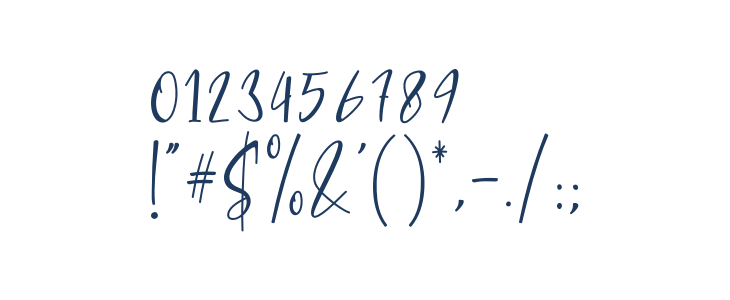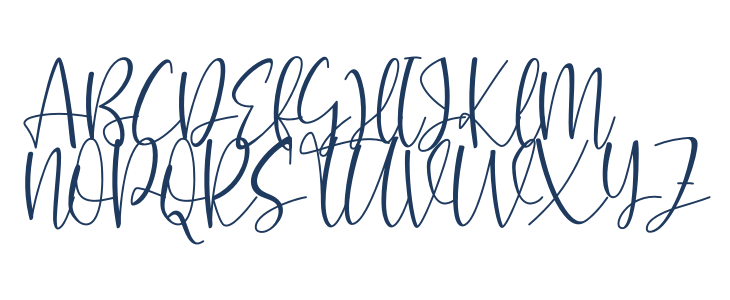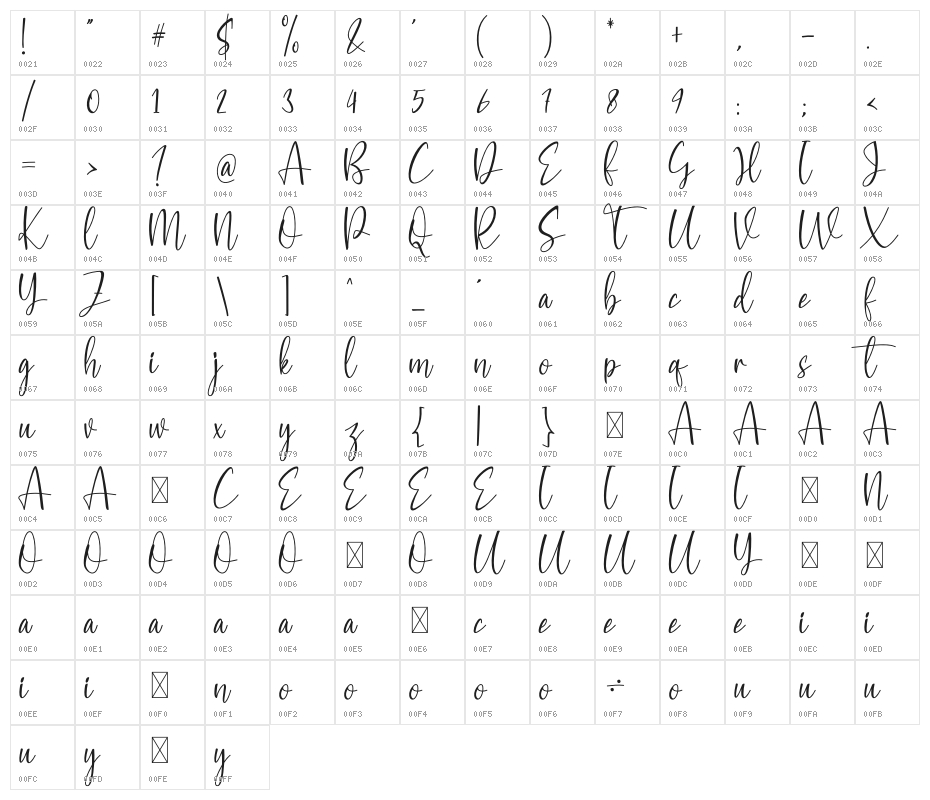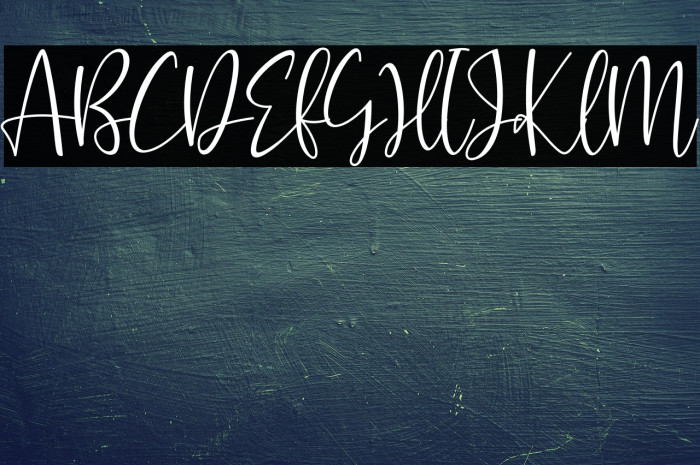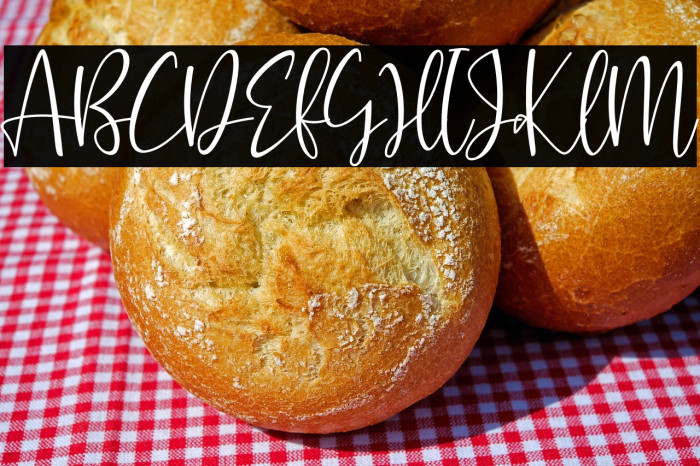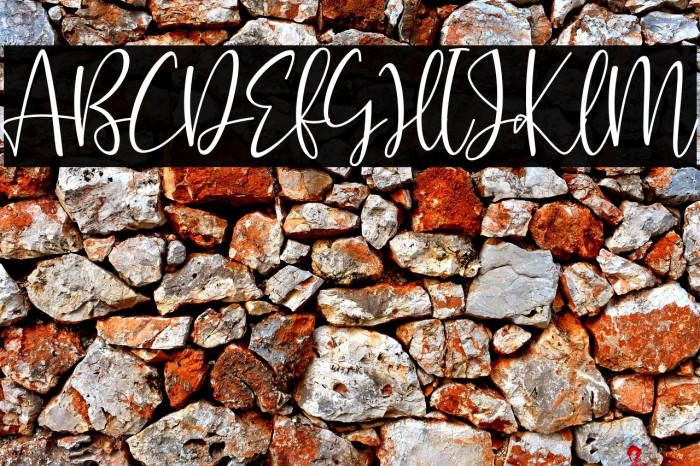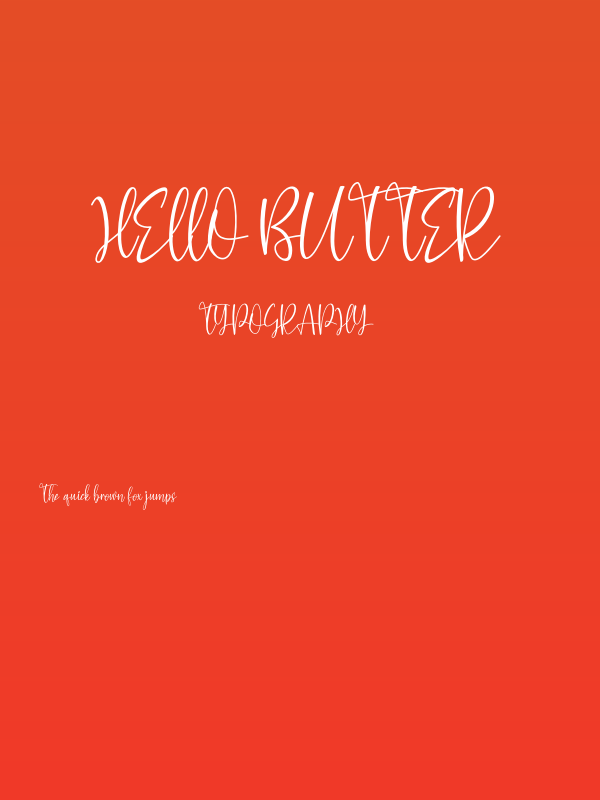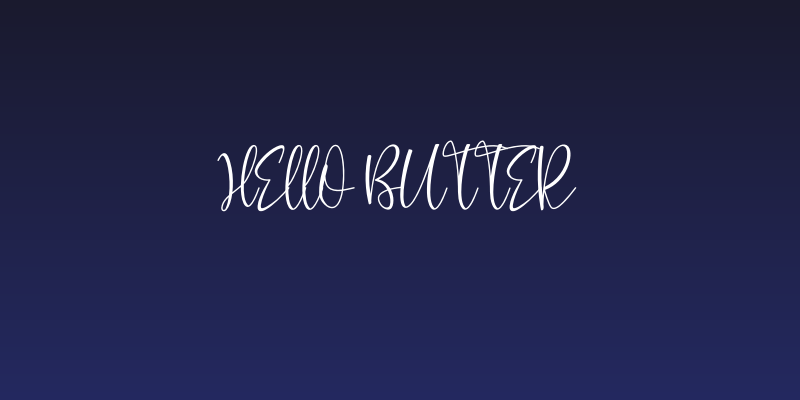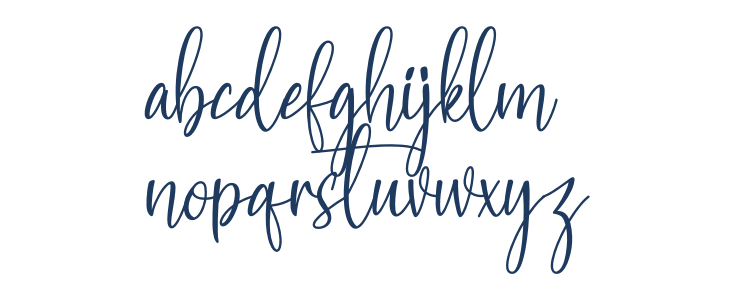
Hello Butter Font
Hello Butter Description
A playful, flowing handwritten script with tall, narrow letterforms and loose, connected strokes. The characters have a casual, organic feel with varying baseline heights and a mix of thick and thin lines.
| Width | Condensed |
| Overall Style | Decorative, Playful, Modern |
| Use Case | Logos, Headlines, Invitations, Social media posts |
| Proposed Projects | Greeting cards, invitations, social media graphics, branding for creative businesses, quotes. |